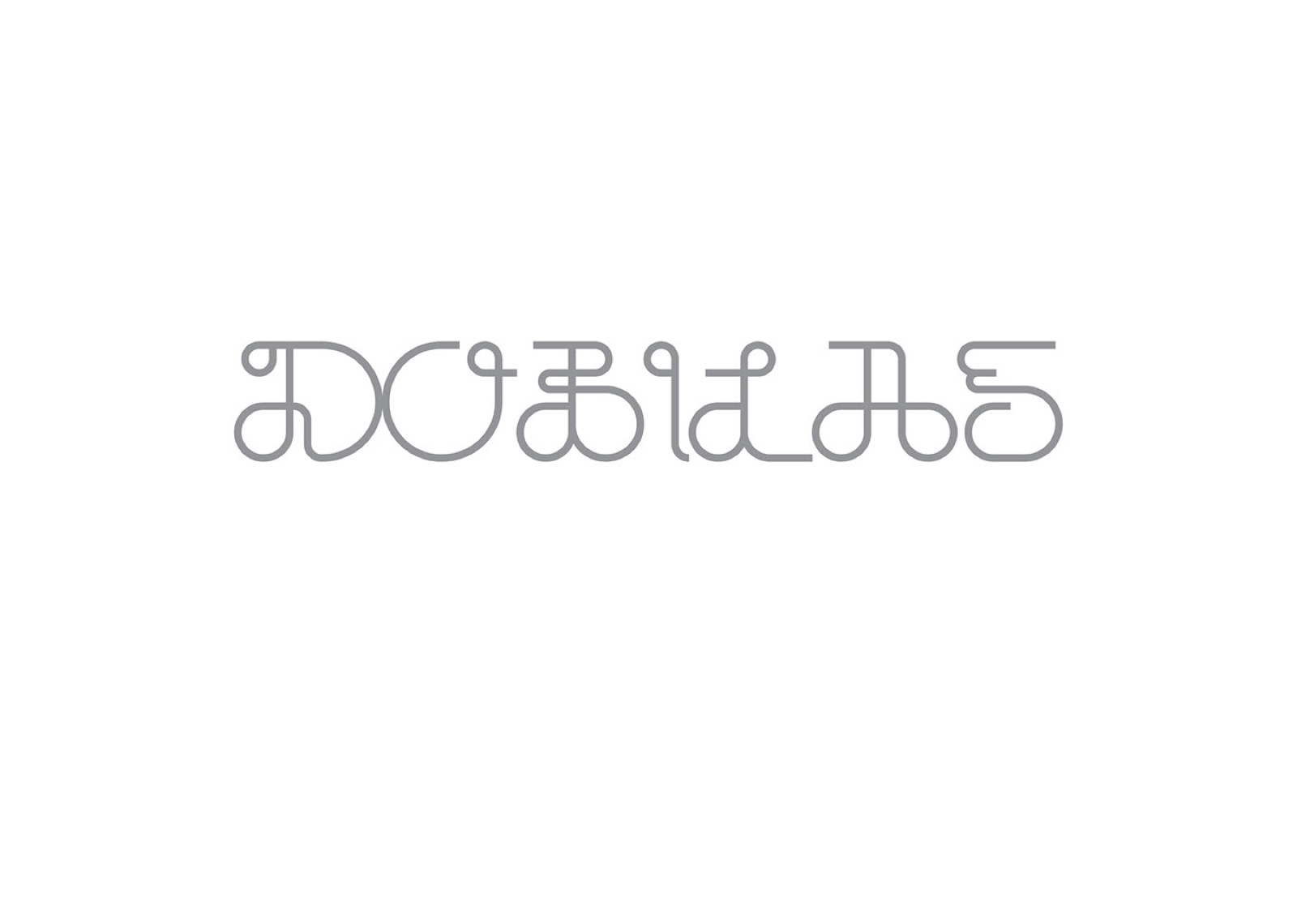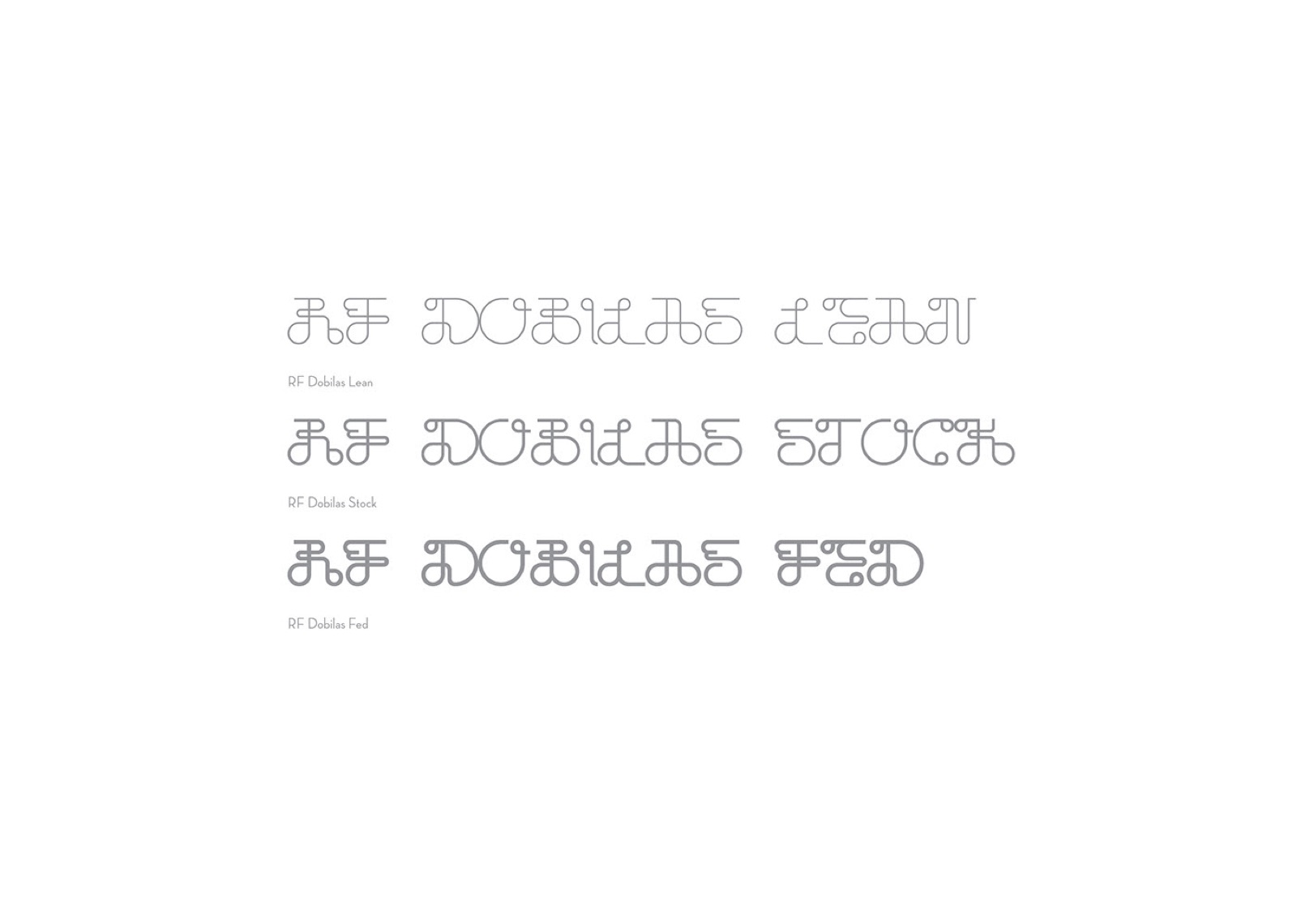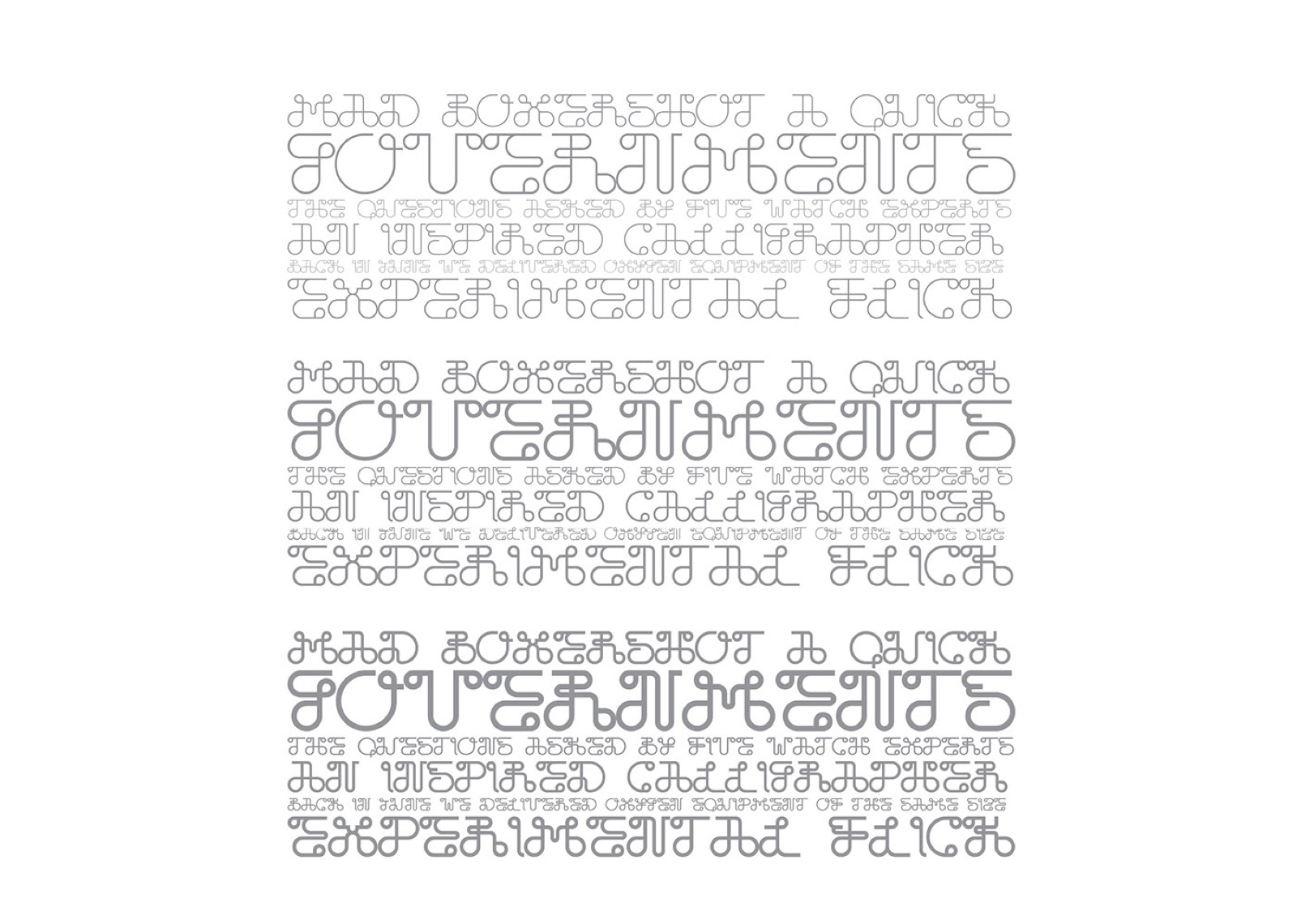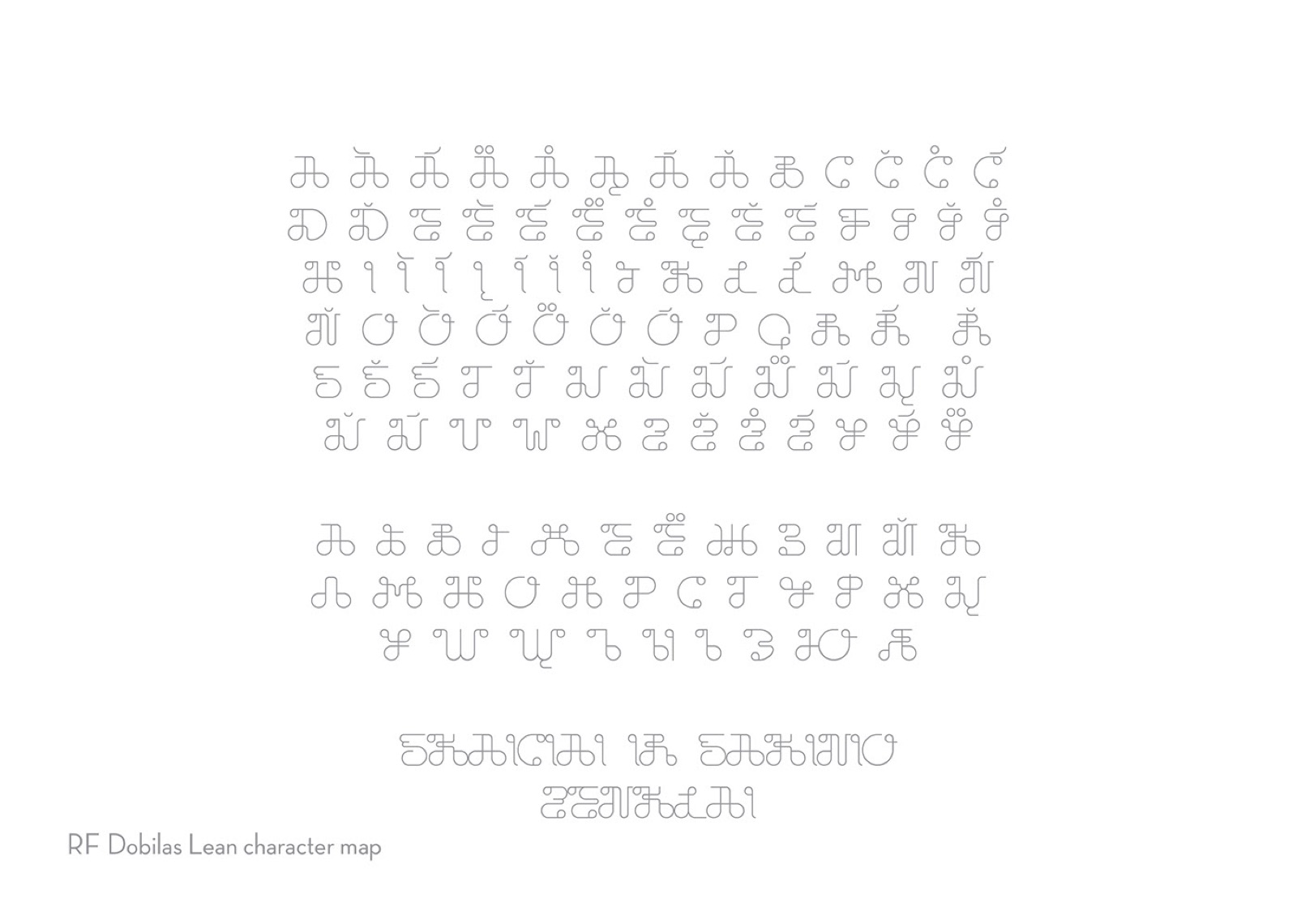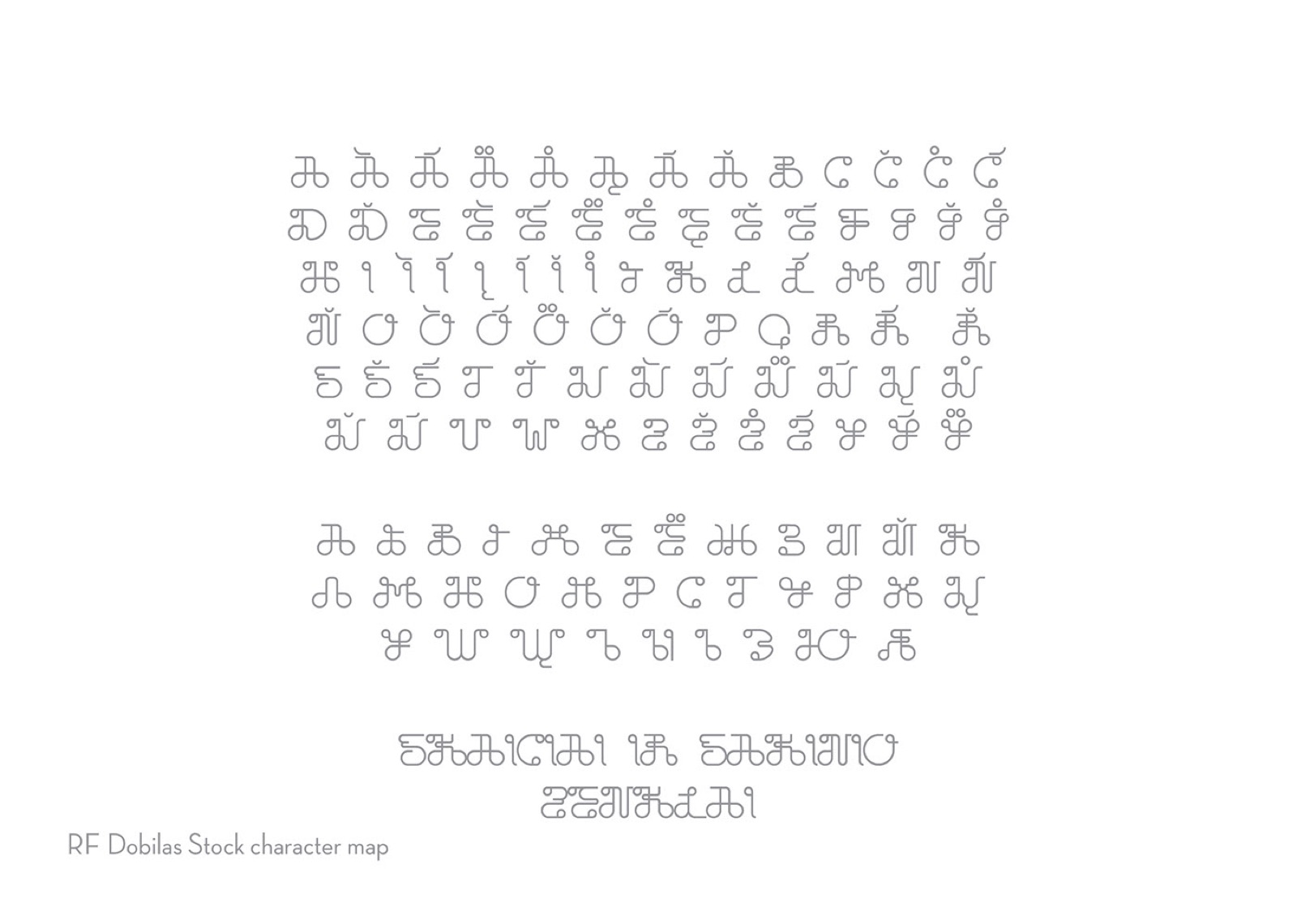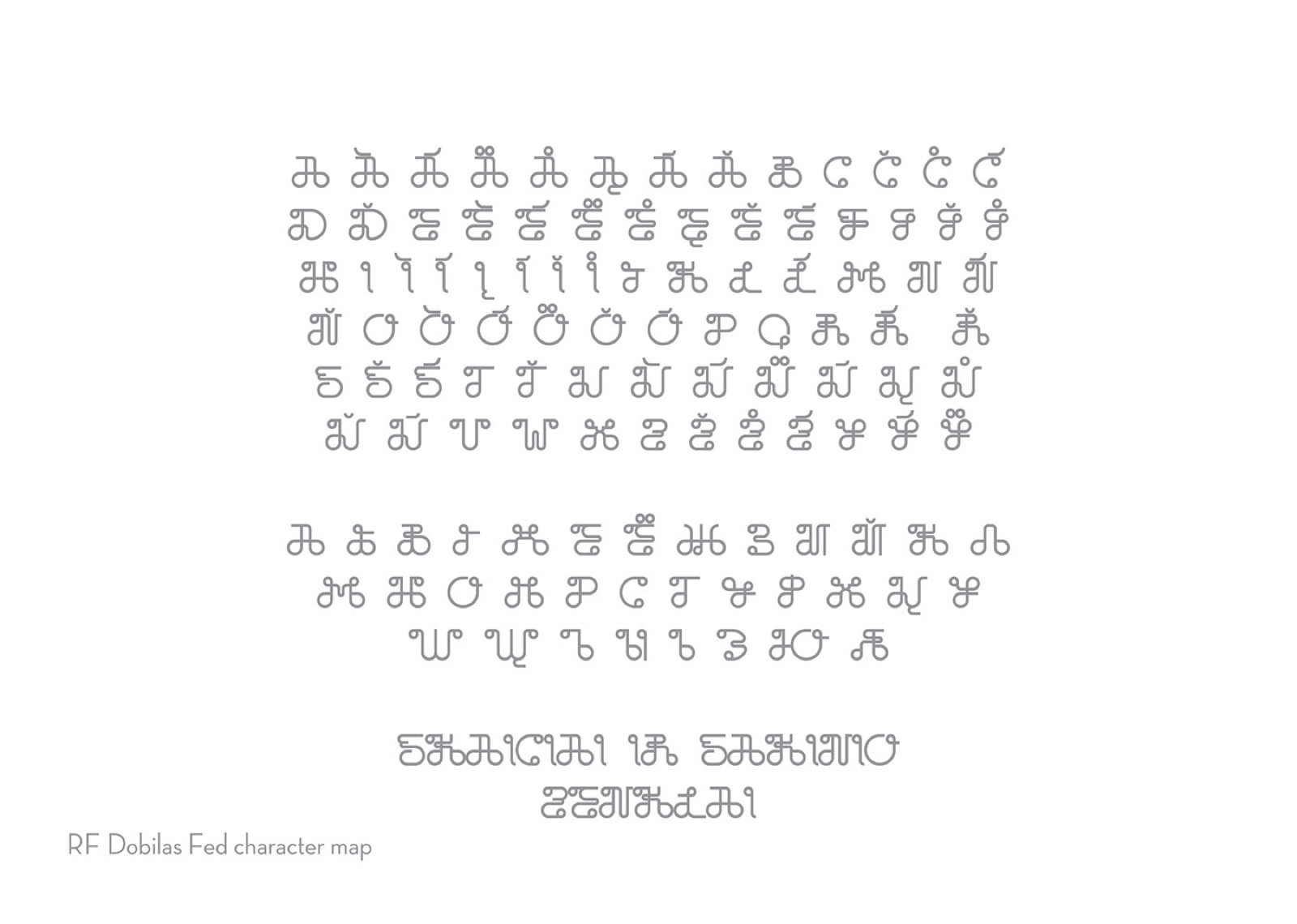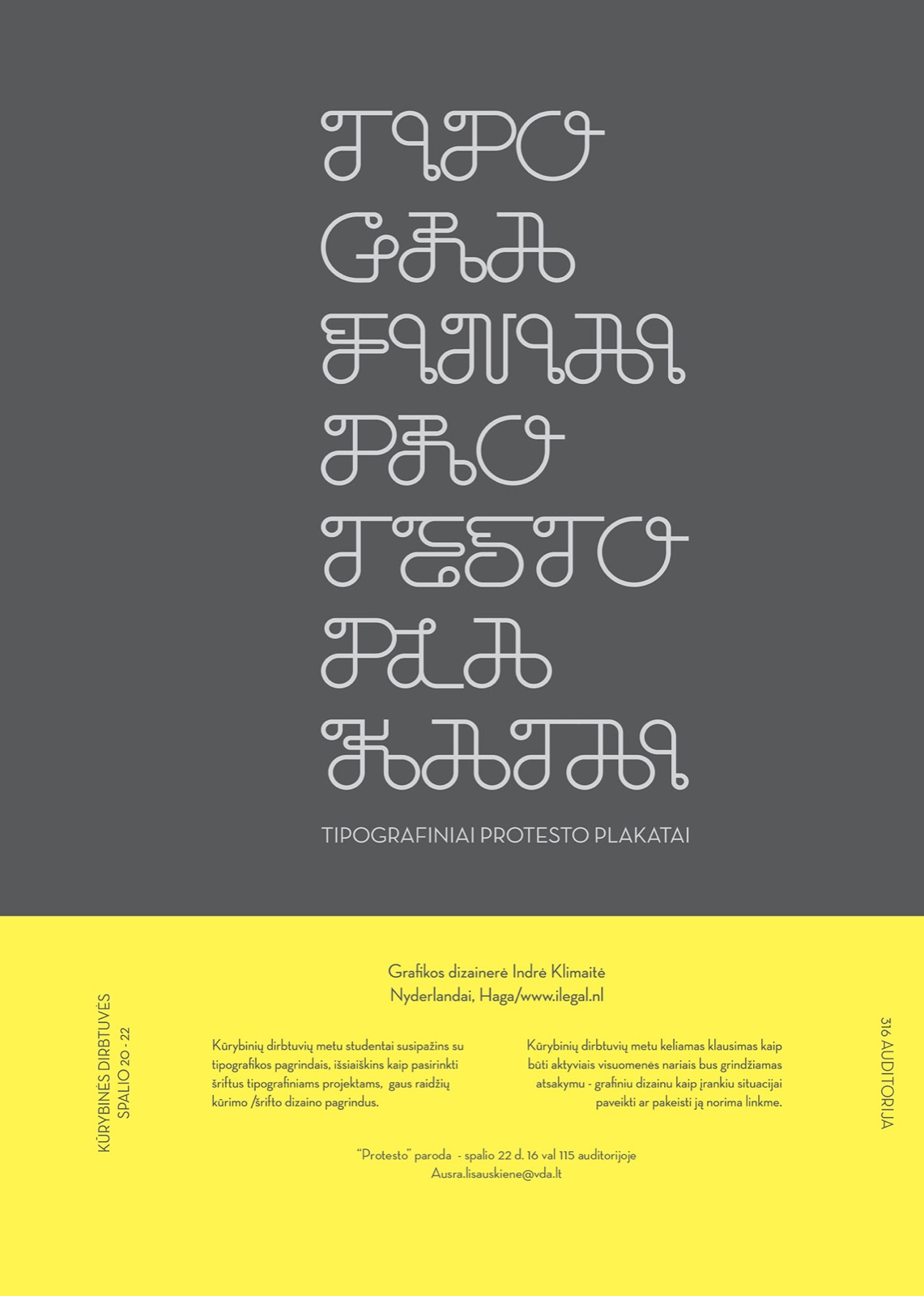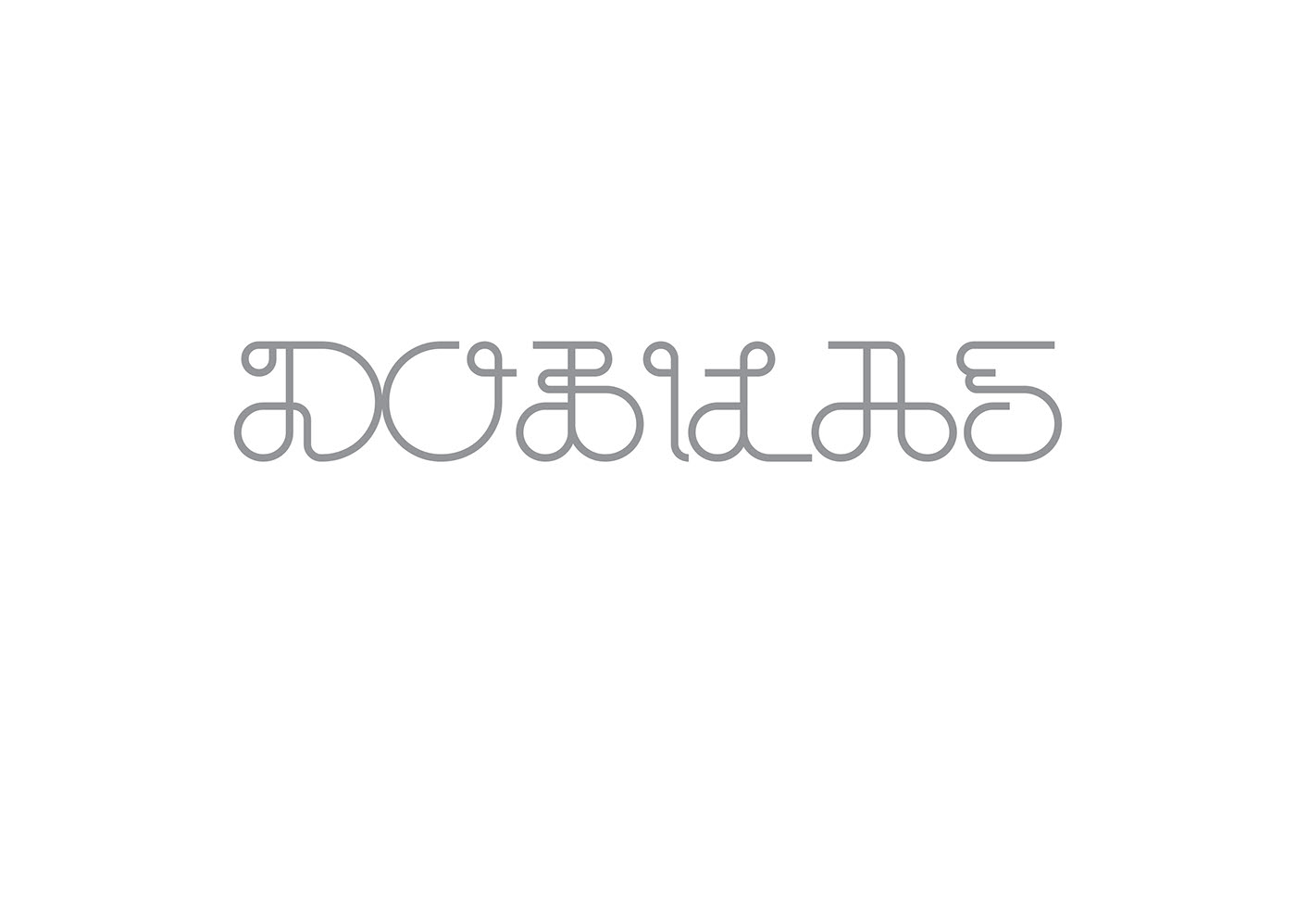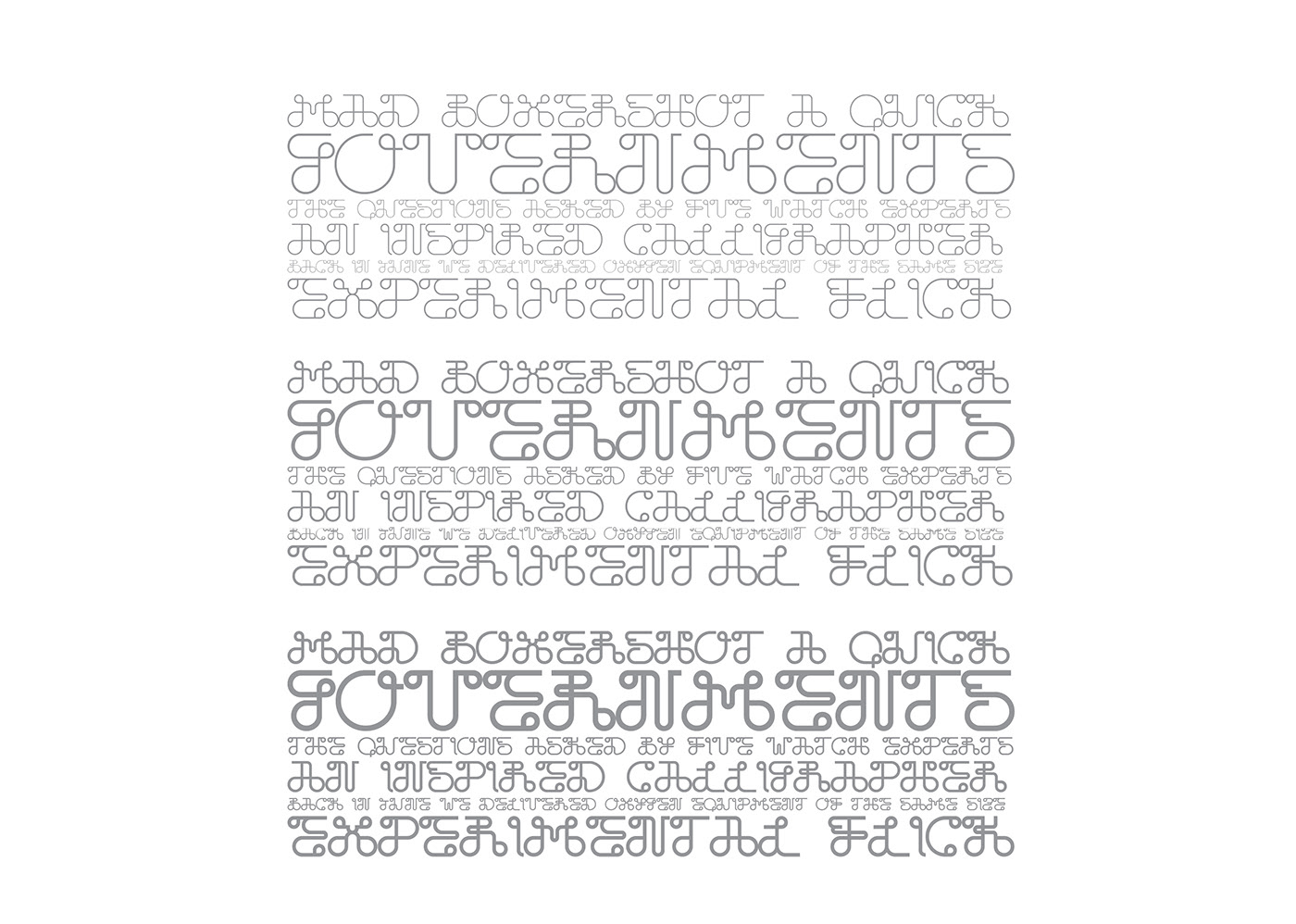
Dobilas Font
DOBILAS (Clover) Typeface Dobilas was born with a purchase of new Molotow transformer marker. At first is was just sketches for my personal logo, but soon I came up with an idea to make an initial letters for portfolio chapters. After making few needed glyphs I’ve decided to make full set of Latin and Cyrillic alphabets. This typeface was designed on the basis of Apple command button and two more conditions. First and main condition was to have vertical and horizontal styrokes, well rounded, same weight with 90° degree angle corners. The second condition was to build glyph share from only one continous line or having two separate shapes. The entire font has 3 weights - lean, stock and fed. Typeface Dobilas best fits for initials, monogramic style logo of title case. It only has caps, numbers and sentence punctuation. 2010 Font download: http://www.dafont.com/dobilas.font